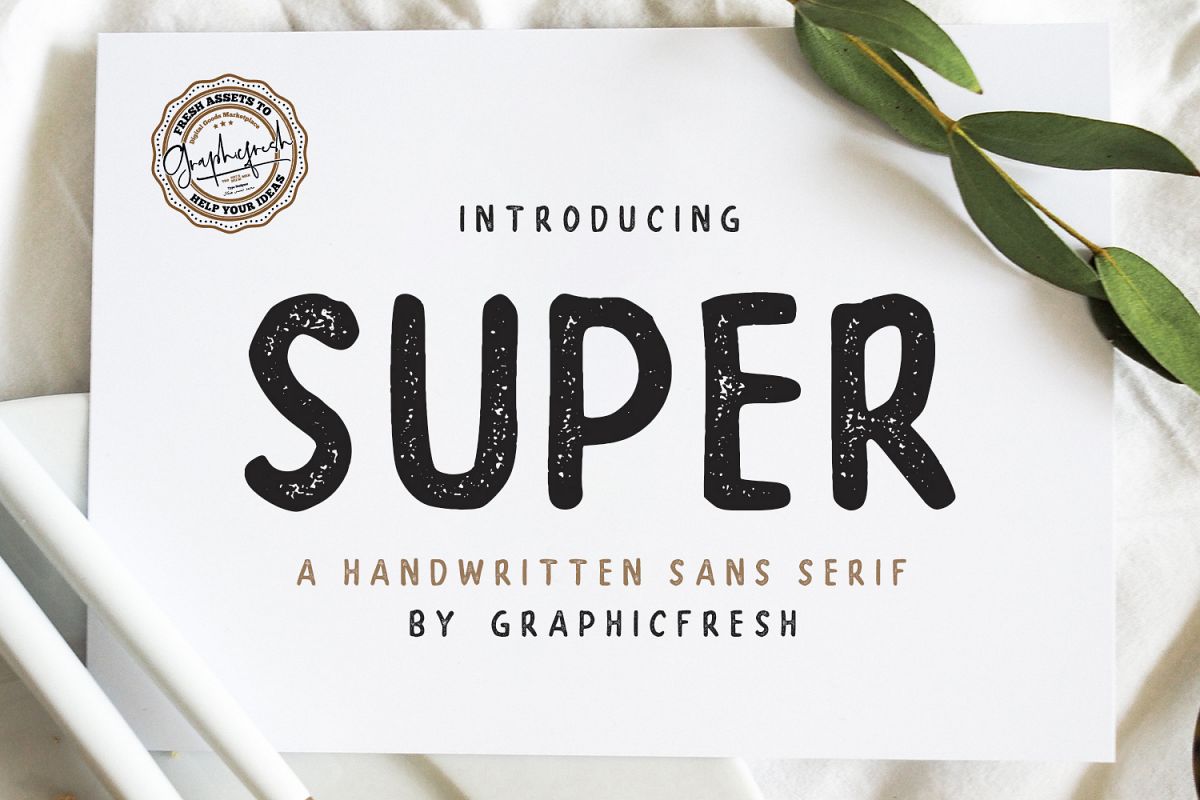
SUPER - A Handwritten Sans Serif
SUPER - A Handwritten Sans Serif and vintage character! it's perfect for logos, name card, magazine layouts, invitations, headers, or even large-scale artwork.
1. Super - A clean and Stamp version, sans serif font including upper & lowercase characters (ALL CAPS), numerals and more of symbols.